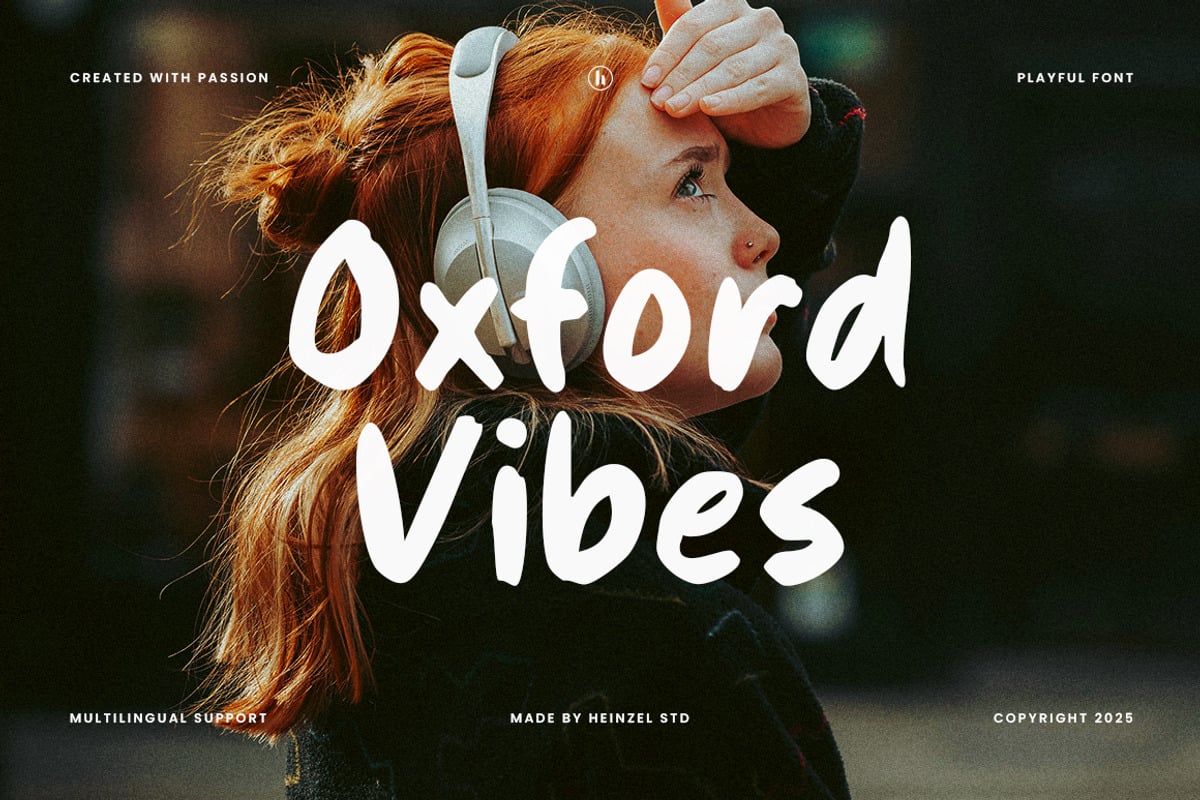
Oxford Vibes Playful Font
Oxford Vibes brings free-flowing, natural handwriting energy to logos, branding, invitations, and beyond.
Oxford Vibes is a playful, organic handwritten font designed to add a personal, authentic touch to your creative projects. Its warm, free-flowing strokes give it an approachable charm that works beautifully across a wide range of design contexts — from wedding invitations and inspiring quotes to brand identities and watermarks.
This versatile typeface adapts effortlessly to taglines, packaging, social media graphics, and other creative needs. Its inviting character ensures your work stands out while conveying a genuine, human feel that connects with audiences.
Oxford Vibes Features:
- Uppercase and Lowercase letters
- Numerals and Punctuation
- Ligatures
- Multilingual Support
- PUA Encoded